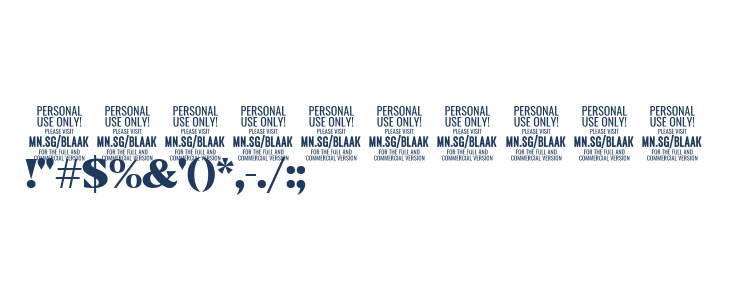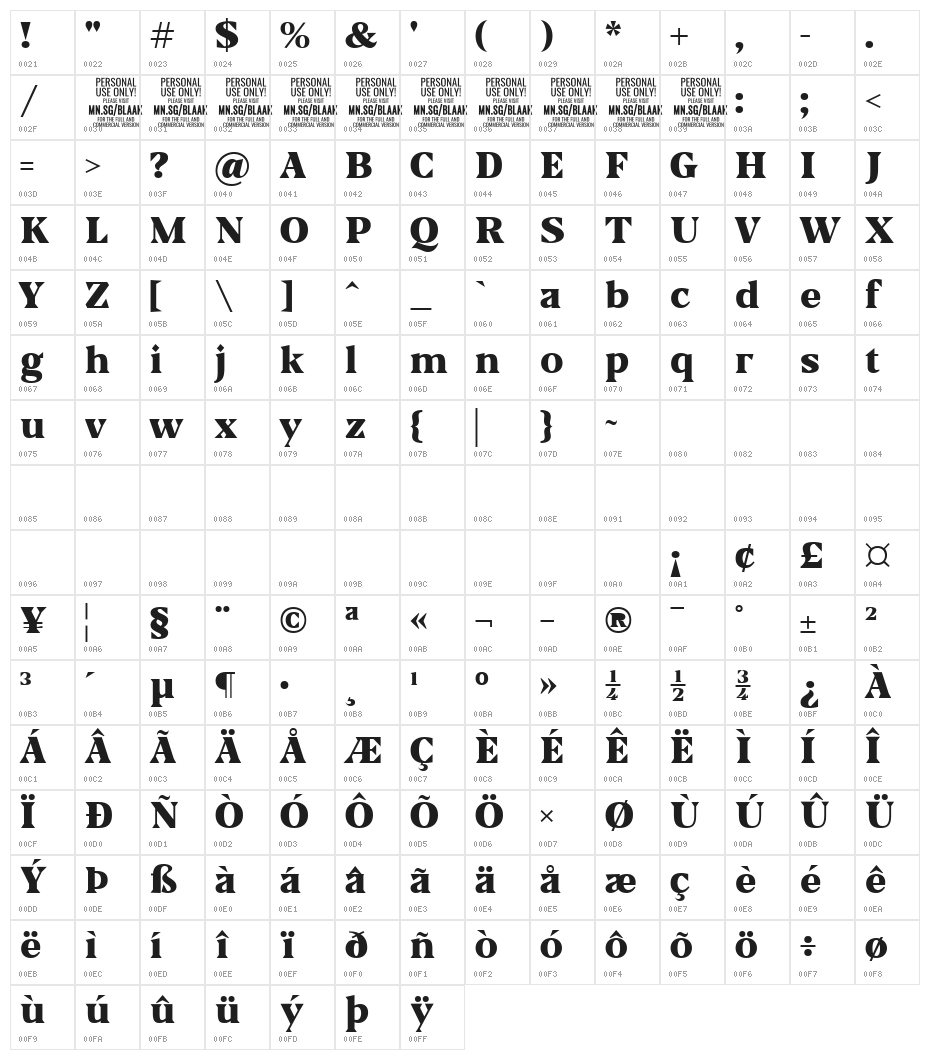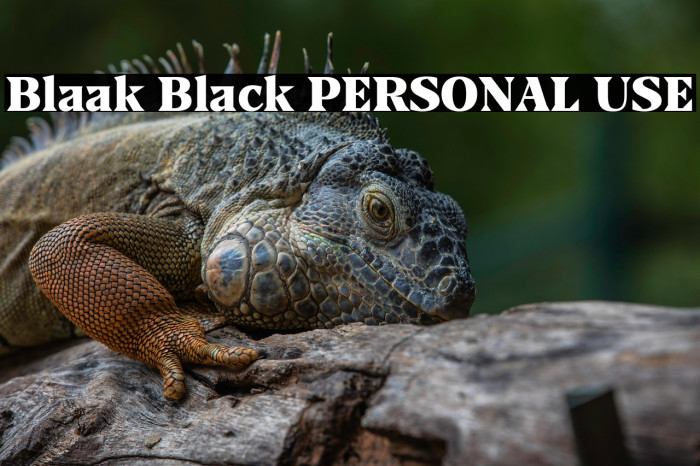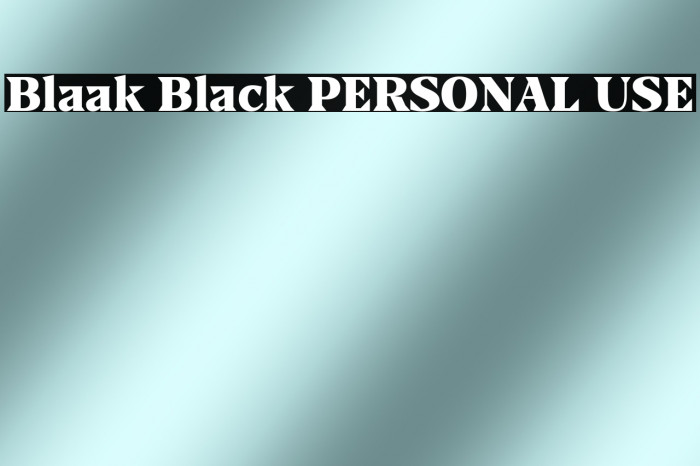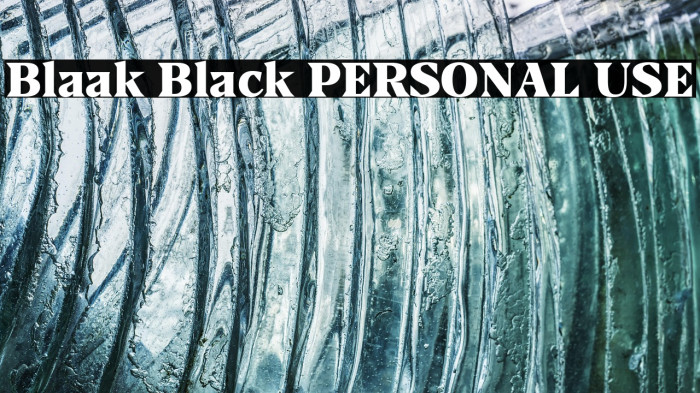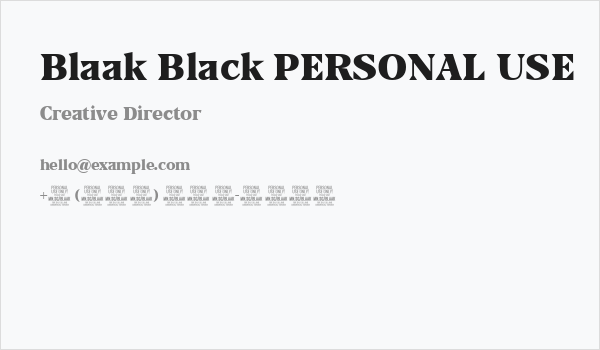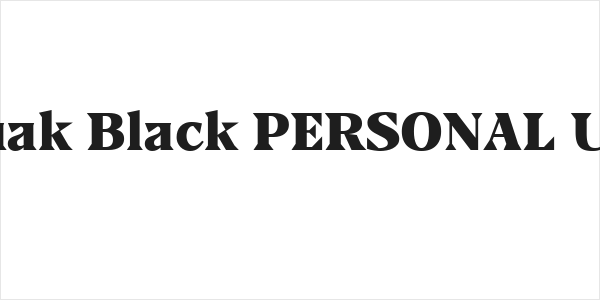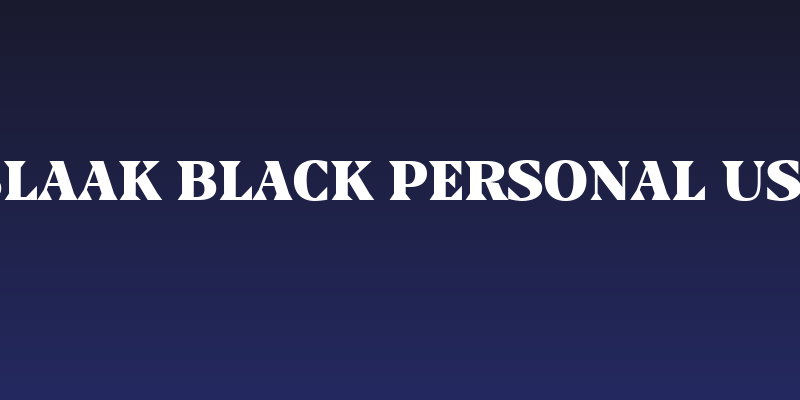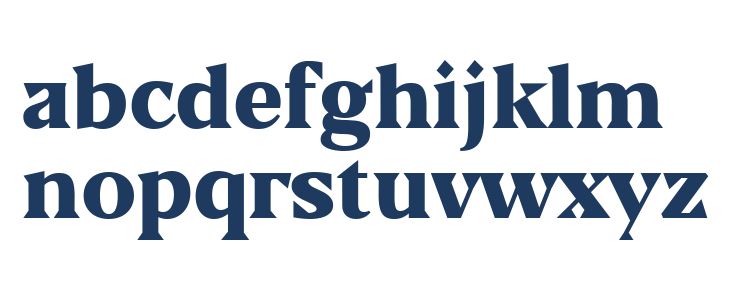
Blaak Black PERSONAL USE Font
Blaak Black PERSONAL USE Description
This font exhibits a bold and striking appearance with thick, strong strokes that convey a sense of authority and confidence. The uppercase letters are particularly prominent, with a slight serif that adds a touch of elegance without compromising the boldness. The lowercase letters maintain the same robust quality, ensuring consistency across different text cases. The numerals and special characters are equally bold, making them stand out effectively. This font's overall design is both modern and classic, making it versatile for various applications.